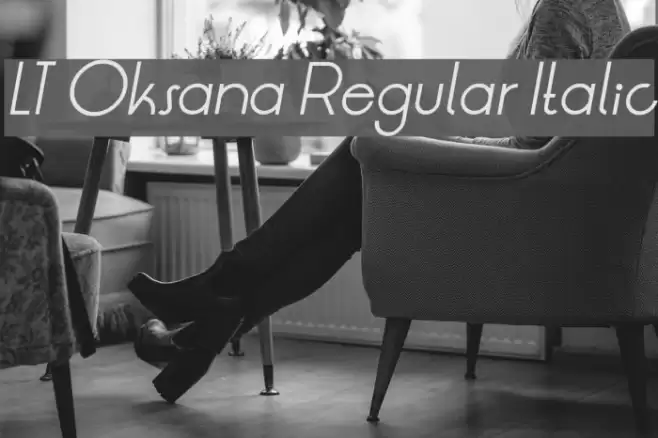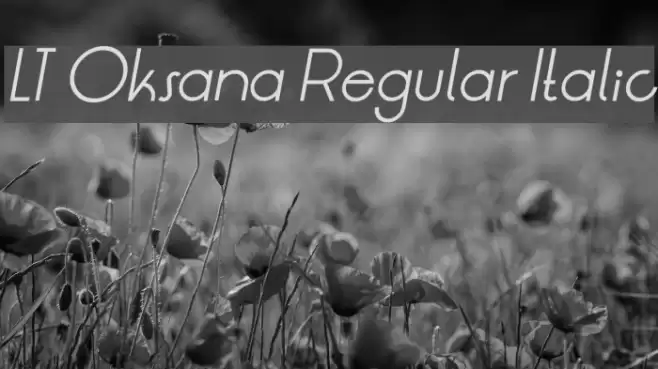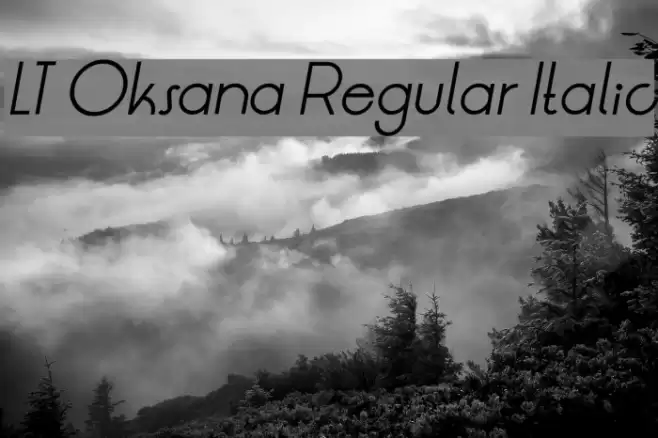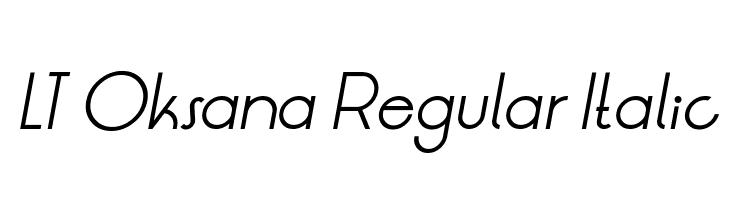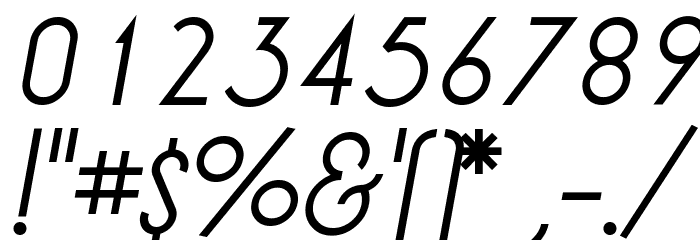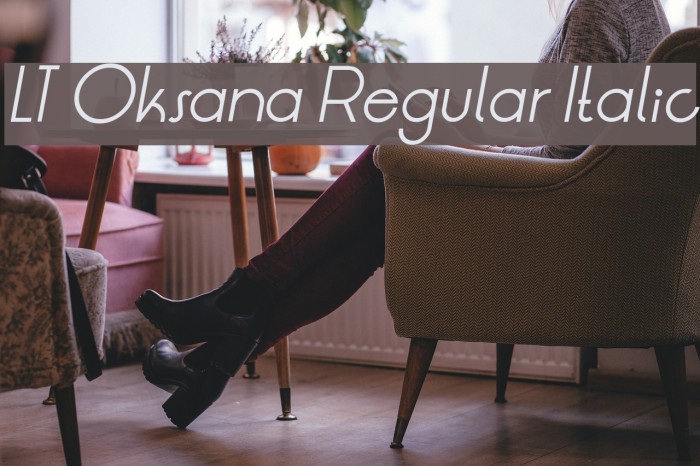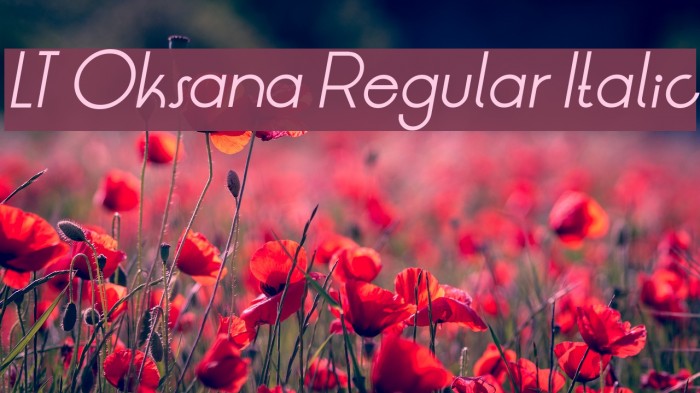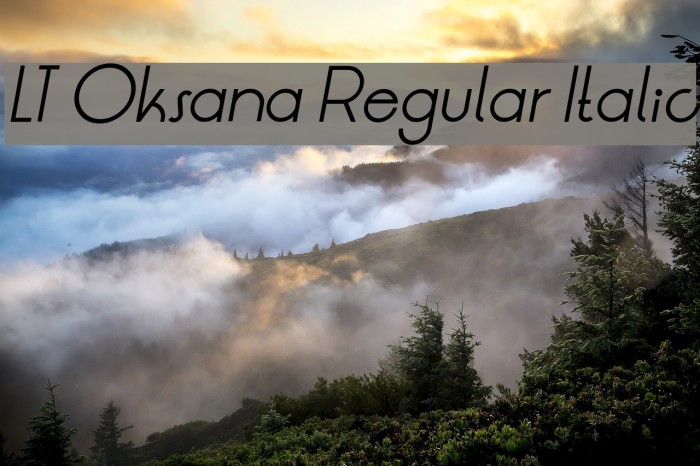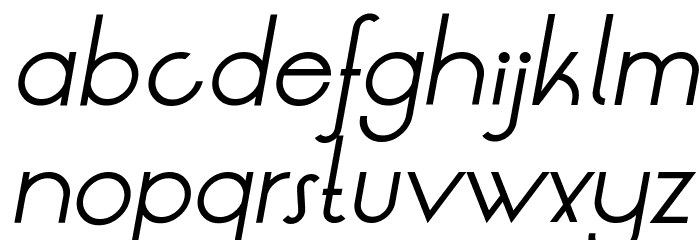
LT Oksana Regular Italic Font
LT Oksana Regular Italic Description
This font features a sleek and modern design with a subtle italic slant, giving it a dynamic and elegant appearance. The characters are crafted with clean lines and a slight curvature, providing a sense of movement and fluidity. The uppercase letters are tall and slender, while the lowercase letters maintain a consistent style with a slightly more rounded form. The numerals are distinct and easy to read, complementing the overall aesthetic. Special characters are included, maintaining the font's cohesive style. This typeface is versatile, suitable for various applications where a touch of sophistication is desired.
A sleek, modern italic font with clean lines and dynamic elegance from Uncategorized fonts.
- Proposed Projects: Ideal for branding, editorial design, fashion magazines, and elegant invitations.